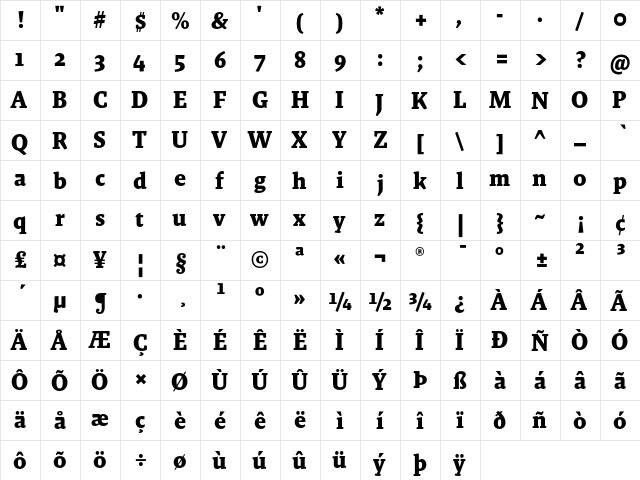
Malaga OT Bold
| Designer | Xavier Dupre |
Design Context for Malaga OT Typeface
Malaga OT offers clean, dependable letterforms without strong stylistic allegiance, making it a practical choice for designers who need flexibility. The heavy weight commands attention and anchors typographic hierarchies.
Pro Tip: Pair Malaga OT with a font of contrasting weight or personality to build a more expressive typographic hierarchy.